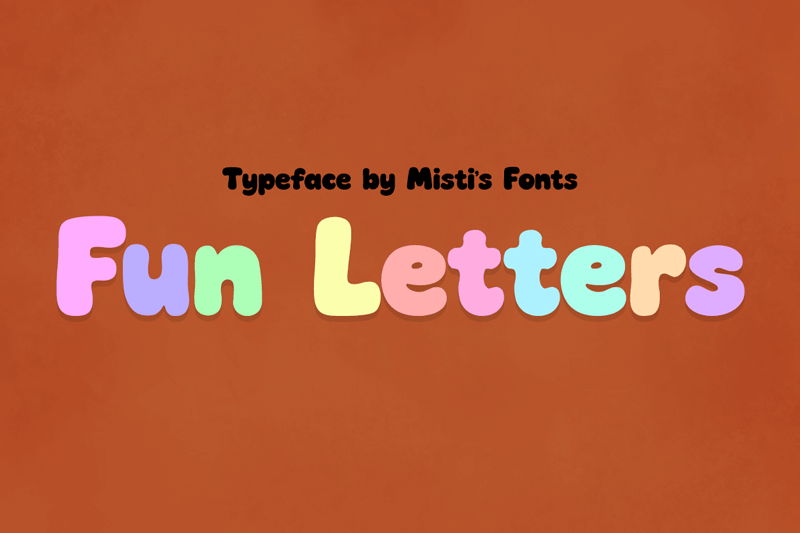
Fun Letters is a playful decorative display font bursting with color and personality. Its rounded, bubbly letterforms and smooth curves create a cheerful and approachable vibe, perfect for projects that need a splash of joy and energy. Terms Of Use and Commercial Licensing: https://mistifonts.com/fun-letters/ |